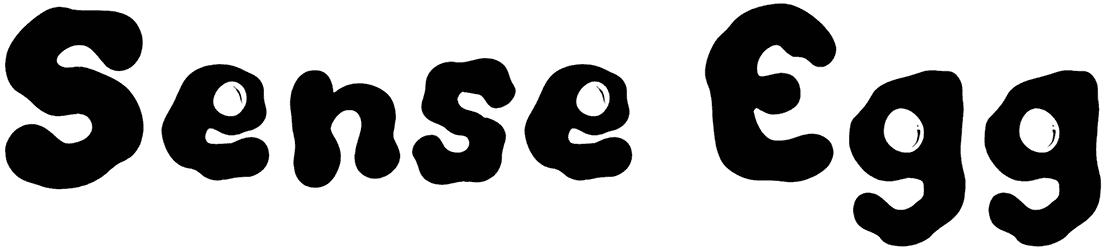
Sense Egg Font
Due to the font’s malformed, unusual appearance, Sense Egg would work well for making a comedic statement in a variety of print and digital productions, particularly those using a childlike style. Although it doesn’t have any lowercase letters.
You can use this fancy cartoon font for the names of children’s television shows, greeting cards, video games, and more. Examine our other fonts to see if there are any that complement this one.